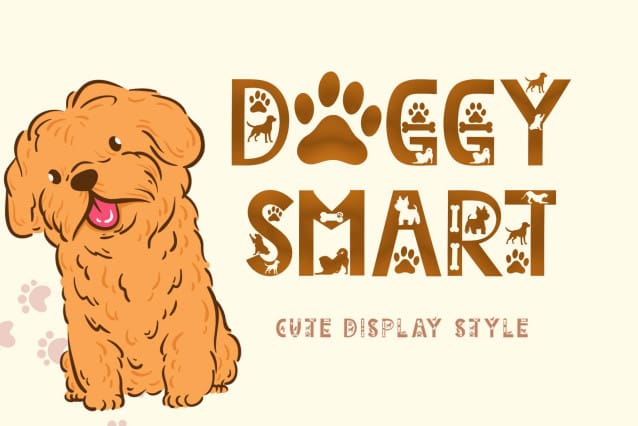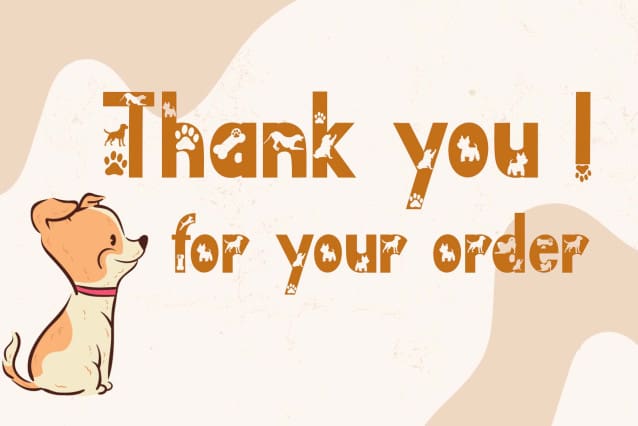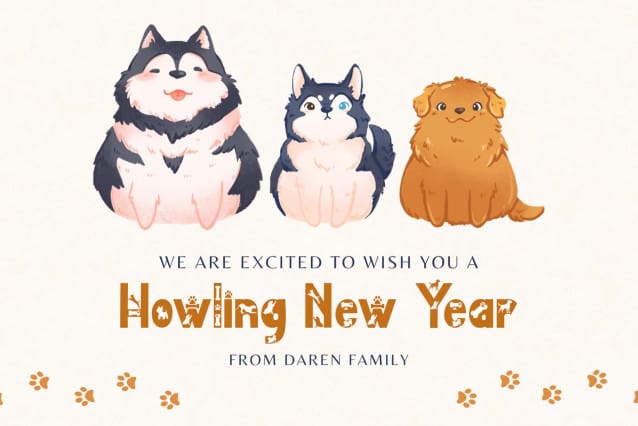
Doggy Smart Font
Doggy Smart Font is a cute and unique display font. This font is decorated with cute dogs. Equipped with uppercase letters, lowercase letters, numerals, punctuations and multilingual support. Very suitable for logos, banners, branding, stickers, posters, prints, congratulations and others.